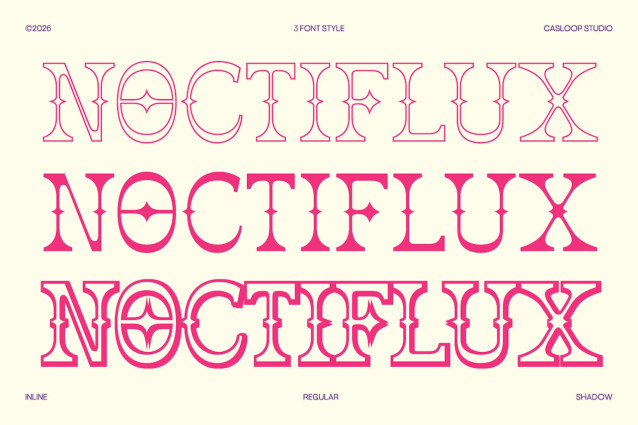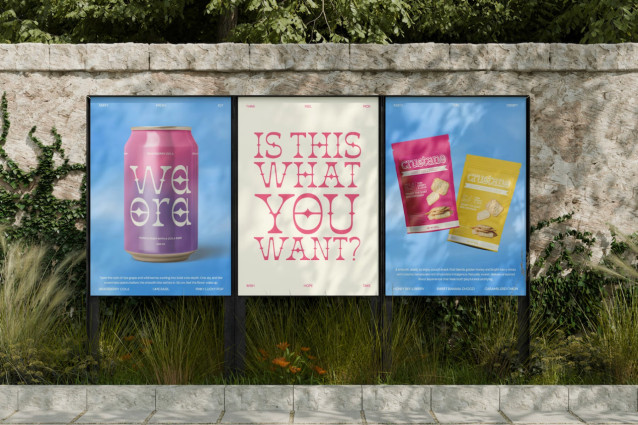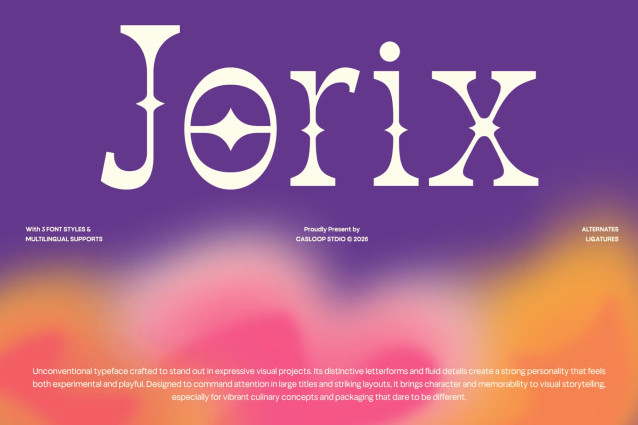
Jorix – Fluid Experimental Font
Jorix is a flowing, experimental display font, Its main feature lies in its treatment of the key characters O, A, E, S, and R, where star-like shapes penetrate the inner space of the letters, creating a sharp contrast between the classic serif foundation and the unexpected graphic intervention.
The tension between structure and distortion gives Jorix a striking and unconventional presence, making it ideal for creative agencies, branding systems, food visuals, headlines and identity projects that demand uniqueness, visual impact and a fearlessly experimental tone.